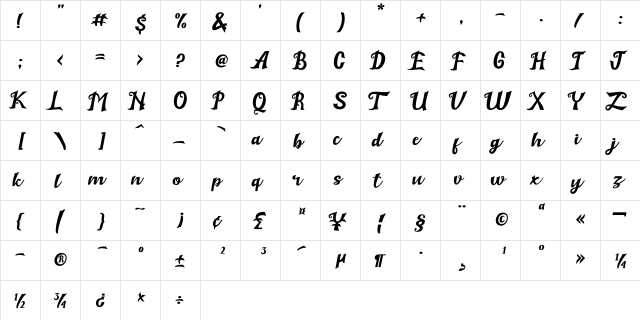
The Immortal 2 Regular
| Designer | Haksen Letters |
Design Context for The Immortal 2 Typeface
The Immortal 2 is a composed and adaptable typeface that performs quietly and consistently across a wide range of design contexts.